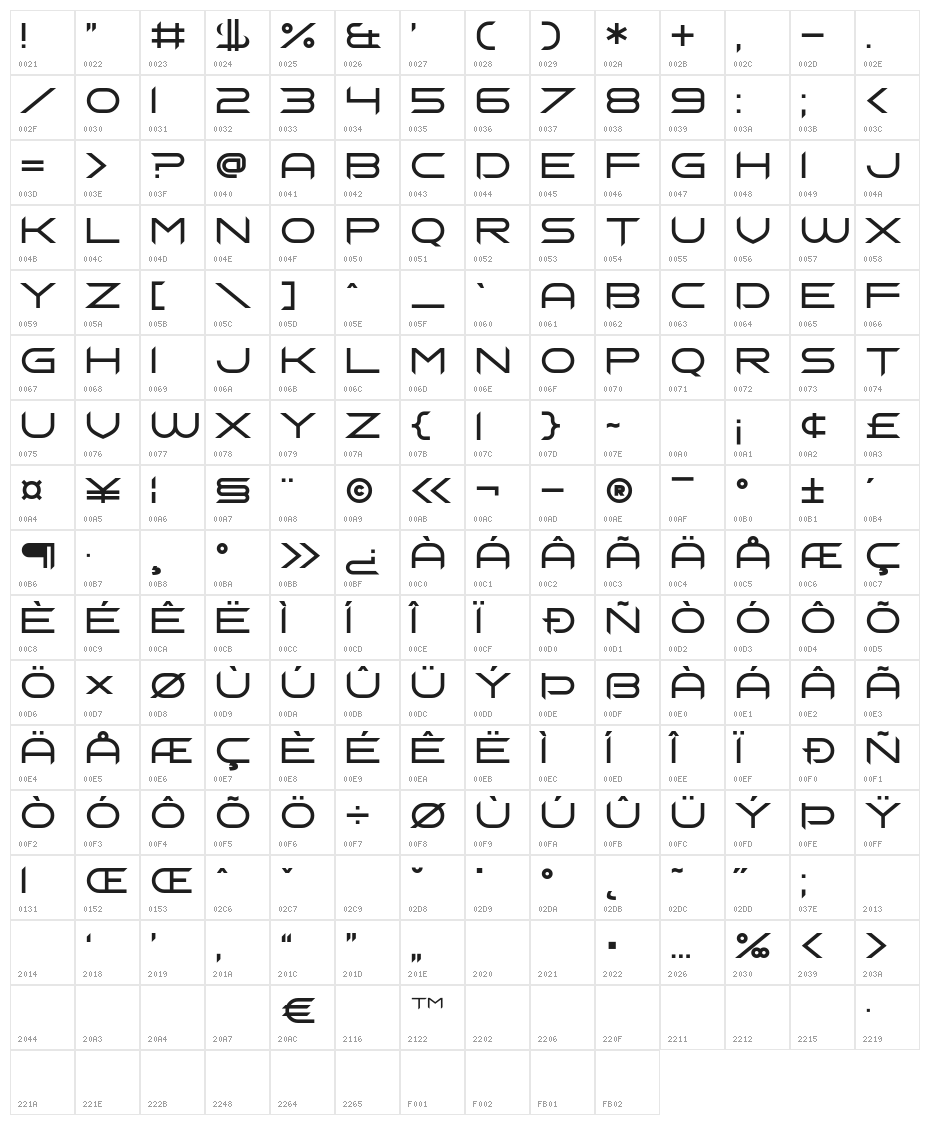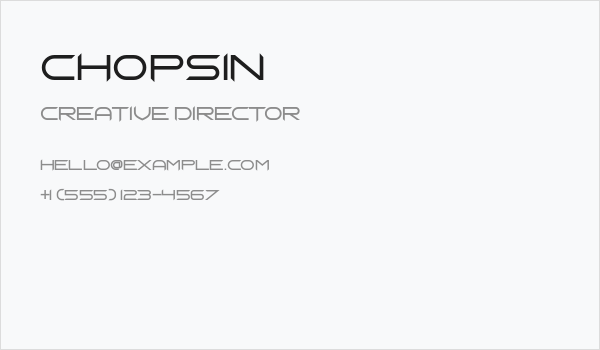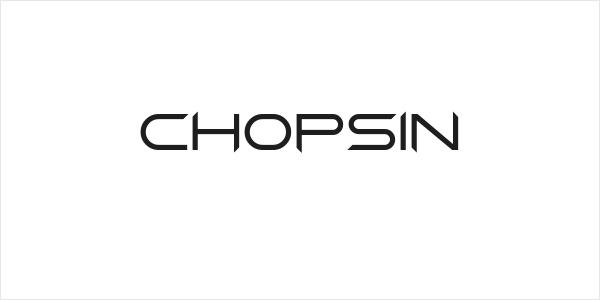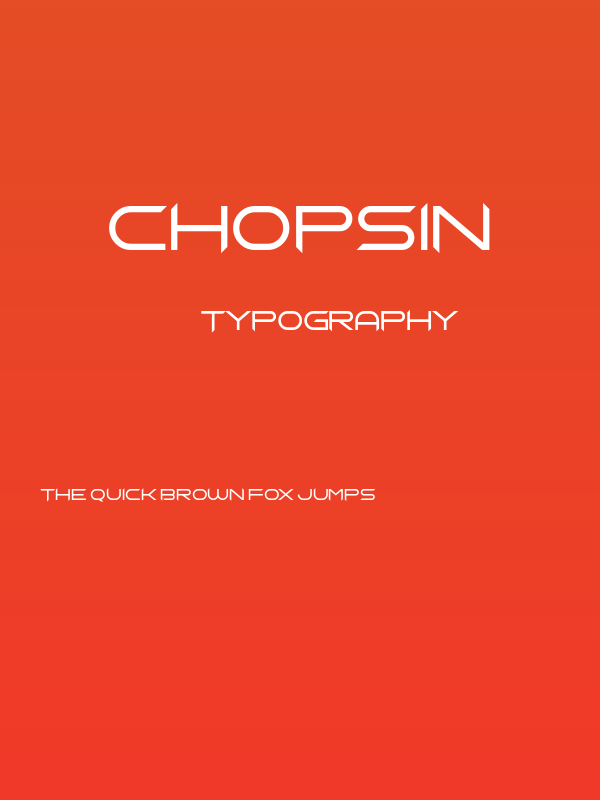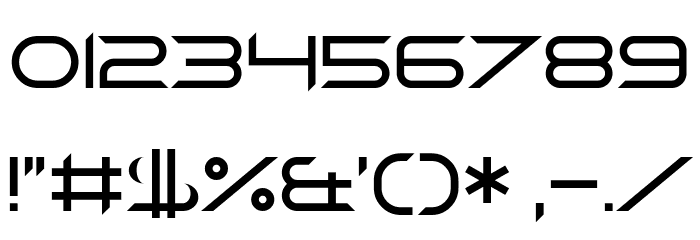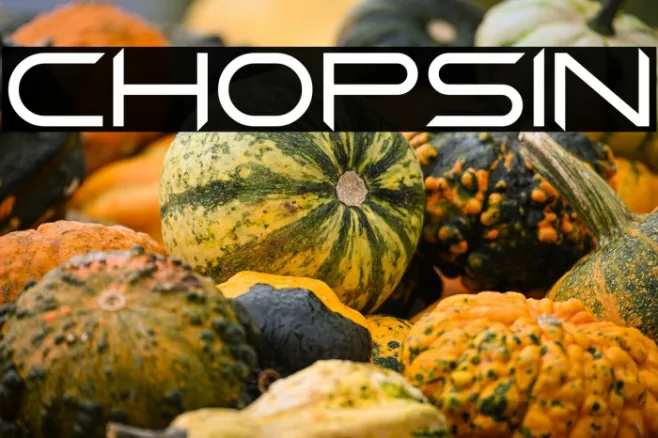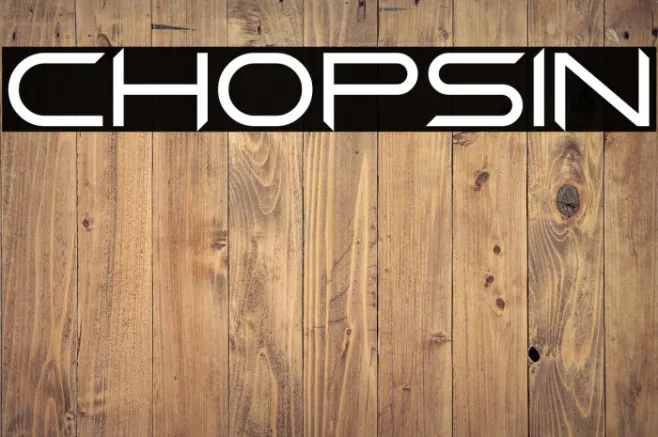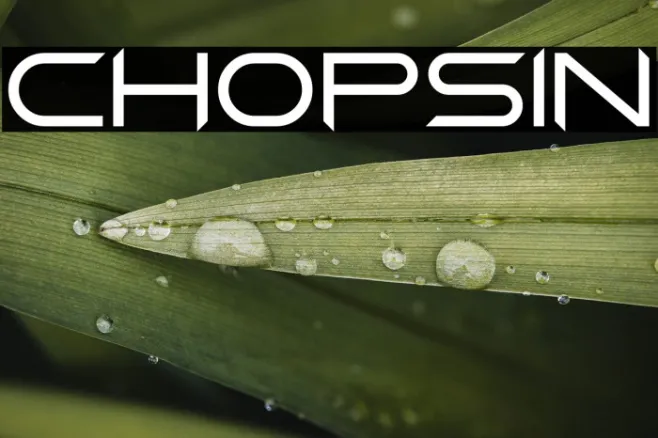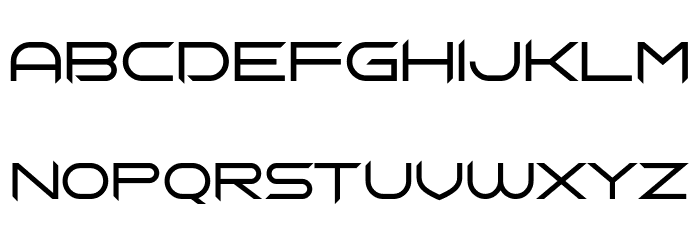
Chopsin Font
Chopsin Description
This font features a modern and futuristic design with geometric elements and sharp angles. The characters are constructed with clean lines and a distinct angular style, giving it a unique and edgy appearance. The uppercase and lowercase letters maintain a consistent height, creating a uniform look. The numerals and special characters follow the same design principles, ensuring a cohesive visual identity. This font is ideal for projects that require a contemporary and bold aesthetic.
| Proposed Projects | Ideal for technology branding, sci-fi themed designs, modern posters, and innovative product packaging. |